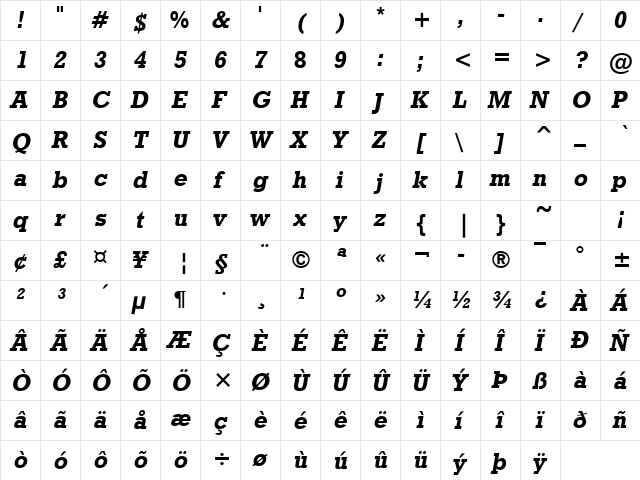
Granite Bold Italic
Design Context for Granite Typeface
Granite offers clean, dependable letterforms without strong stylistic allegiance, making it a practical choice for designers who need flexibility. The slanted form adds forward momentum and visual energy. Its bold stroke weight gives it real presence on the page.